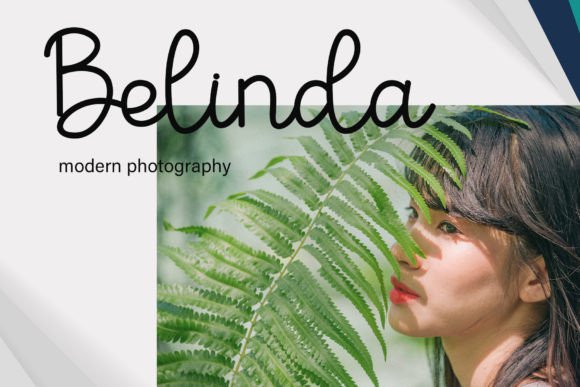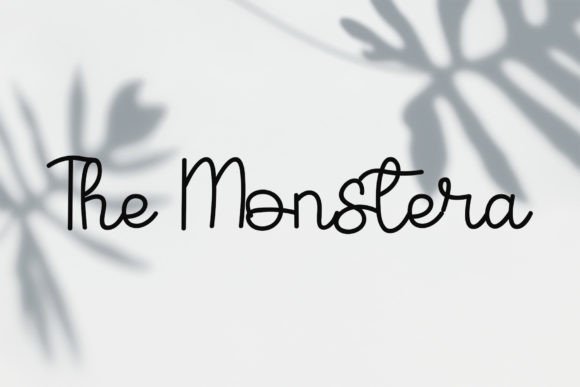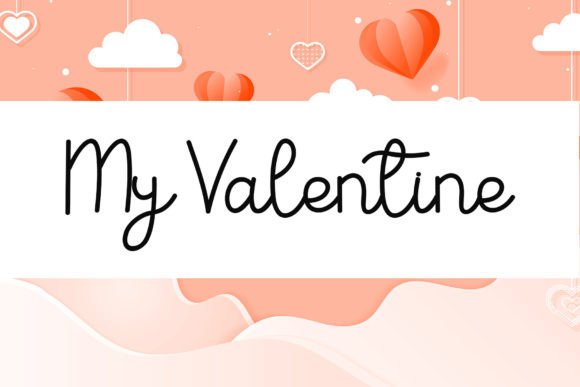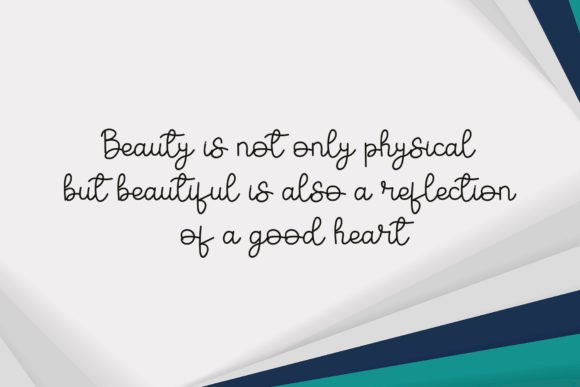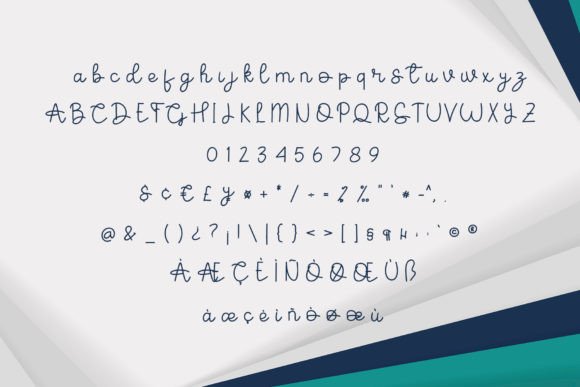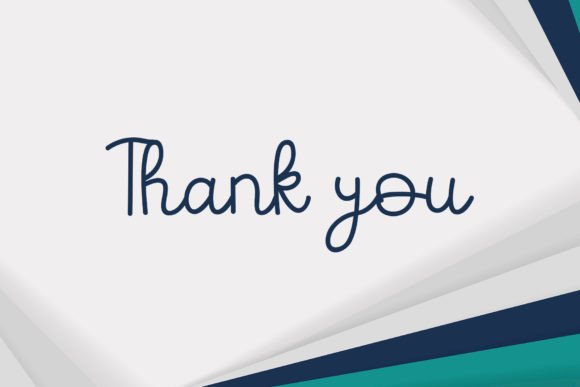
The Beauty Font: Elevate Your Designs with Timeless Elegance
Are you a designer or crafter looking for a font that exudes sophistication and style? Look no further than the Beauty Font, a stunning handwritten font that brings a touch of classic elegance to any project. Inspired by timeless calligraphy, this font is designed to enhance the beauty of your work with its impeccable form and contemporary atmosphere.
What is the Beauty Font?
The Beauty Font is a stylish handwritten font that boasts a balanced and varied design. Its unique blend of classic and modern elements makes it perfect for a wide range of projects, from branding and advertising to packaging and digital media. With its elegant lines and refined aesthetic, this font is sure to elevate your designs and leave a lasting impression on your audience.
Key Features of the Beauty Font
• Timeless Classic Calligraphy Inspiration: The Beauty Font draws inspiration from traditional calligraphy, giving it a sense of sophistication and elegance.
• Contemporary Atmosphere: Despite its classic inspiration, the font has a distinctly modern feel, making it perfect for designers and crafters who want to create fresh and contemporary designs.
• Impeccable Form: The font’s design is meticulously crafted to ensure that every letter and character is perfectly formed, giving it a sense of refinement and luxury.
• Balanced and Varied: The Beauty Font features a range of characters and glyphs, allowing you to create complex and visually appealing designs that are full of depth and interest.
Why Choose the Beauty Font?
There are many fonts on the market that claim to offer elegance and sophistication, but the Beauty Font stands out from the crowd. Here are just a few reasons why:
• Versatility: The Beauty Font is incredibly versatile, making it suitable for a wide range of projects and applications.
• Easy to Read: Despite its elegant design, the font is easy to read, even at small sizes.
• Unique and Memorable: The Beauty Font has a distinctive look that will help your designs stand out from the crowd and leave a lasting impression on your audience.
How to Use the Beauty Font in Your Designs
So, how can you use the Beauty Font in your designs? Here are a few ideas to get you started:
• Branding and Logo Design: Use the Beauty Font to create elegant and sophisticated branding and logos that reflect your brand’s values and personality.
• Advertising and Marketing: The font’s classic elegance makes it perfect for use in advertising and marketing materials, such as brochures, flyers, and posters.
• Packaging Design: Add a touch of luxury to your packaging designs with the Beauty Font, which is perfect for use on labels, packaging materials, and more.
• Digital Media: The font’s modern feel makes it suitable for use in digital media, such as social media graphics, website headers, and more.
In conclusion, the Beauty Font is a stunning handwritten font that offers a unique blend of classic elegance and modern sophistication. With its impeccable form, balanced design, and versatile nature, this font is perfect for designers and crafters who want to elevate their designs and create something truly special. Whether you’re working on a branding project, advertising campaign, or packaging design, the Beauty Font is sure to help you achieve your goals and leave a lasting impression on your audience.